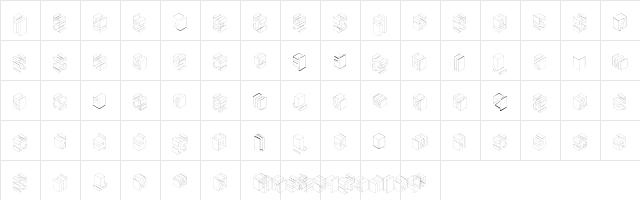
TypoNegative Regular Font Preview
TypoNegative Regular
Design Context for TypoNegative Typeface
TypoNegative is a composed and adaptable typeface that performs quietly and consistently across a wide range of design contexts.